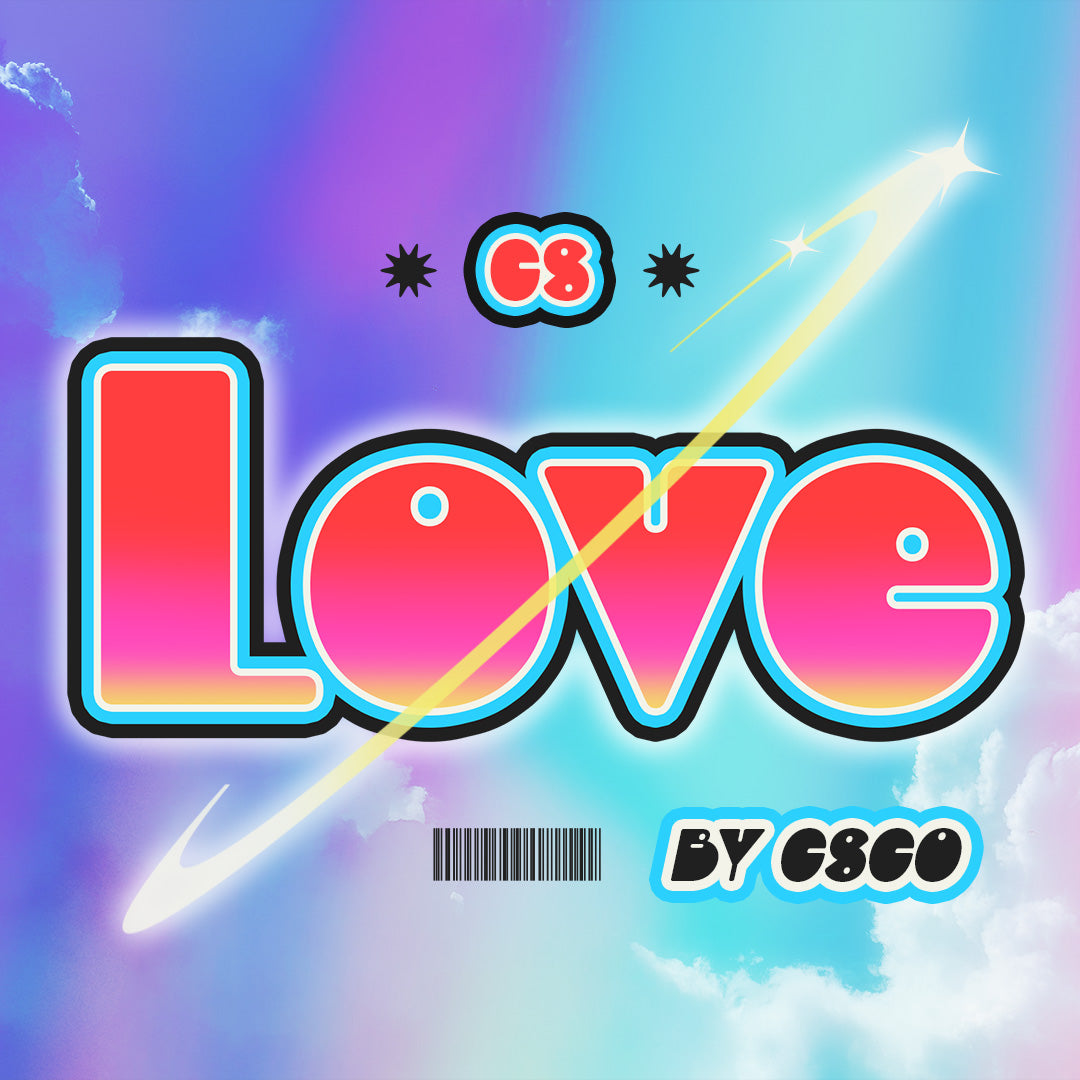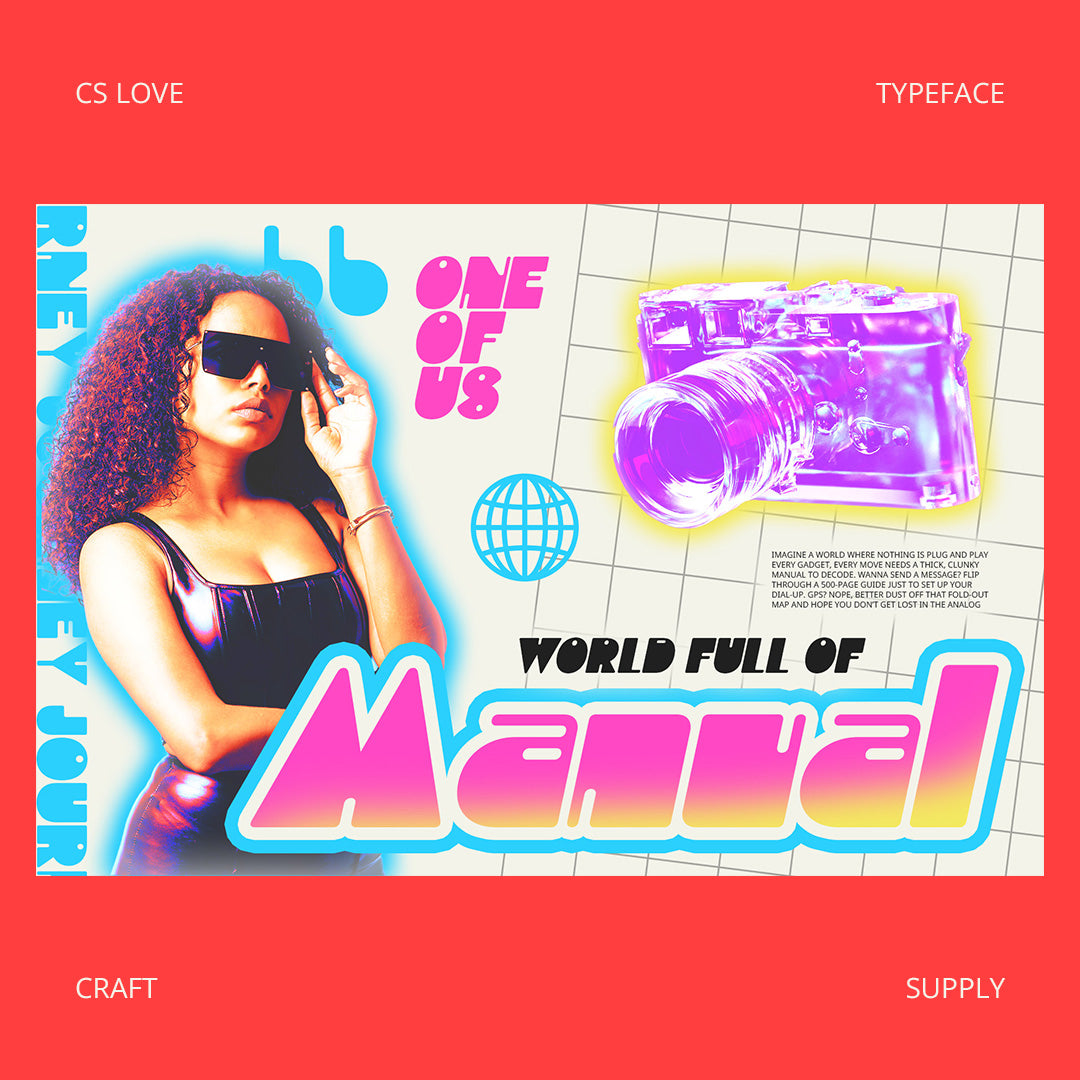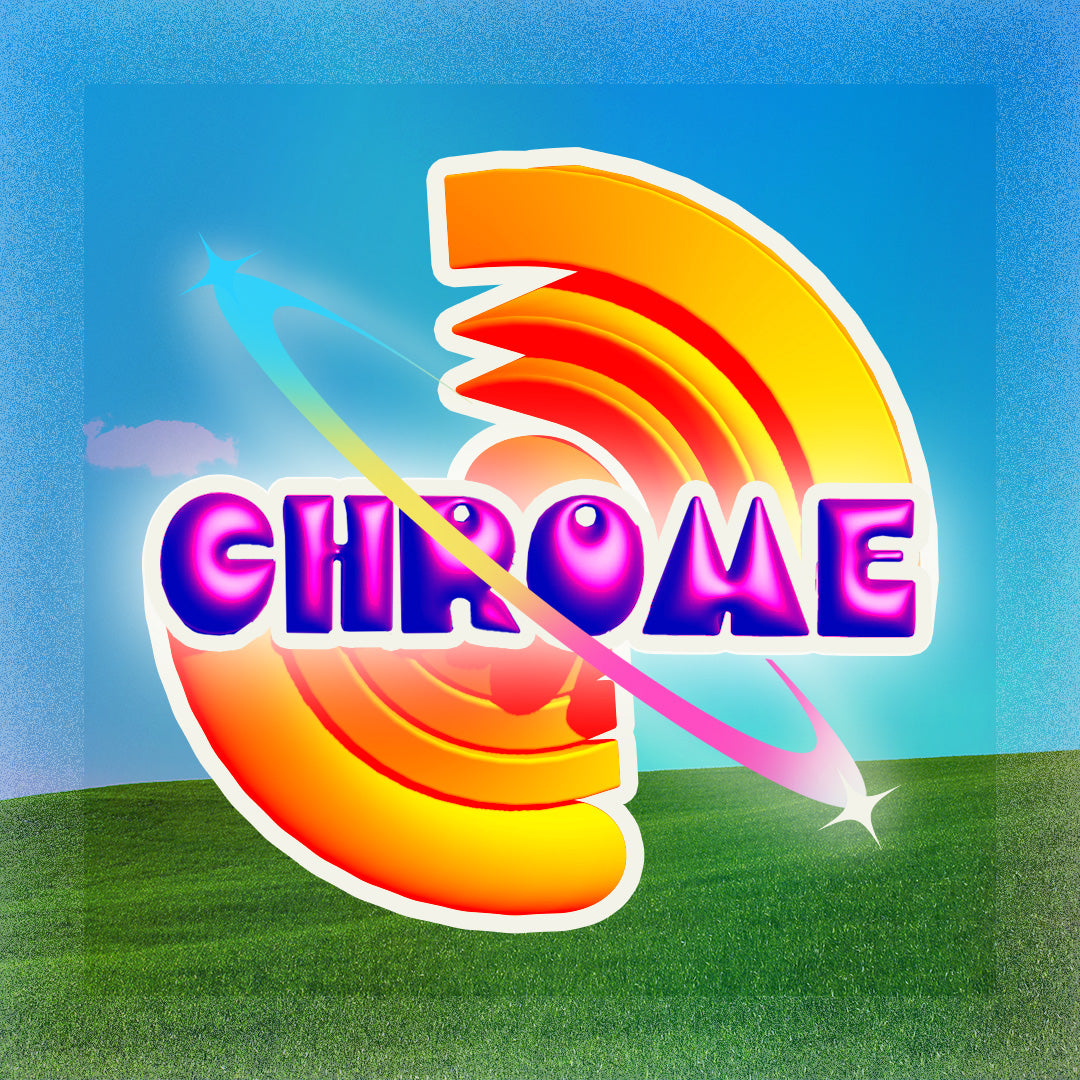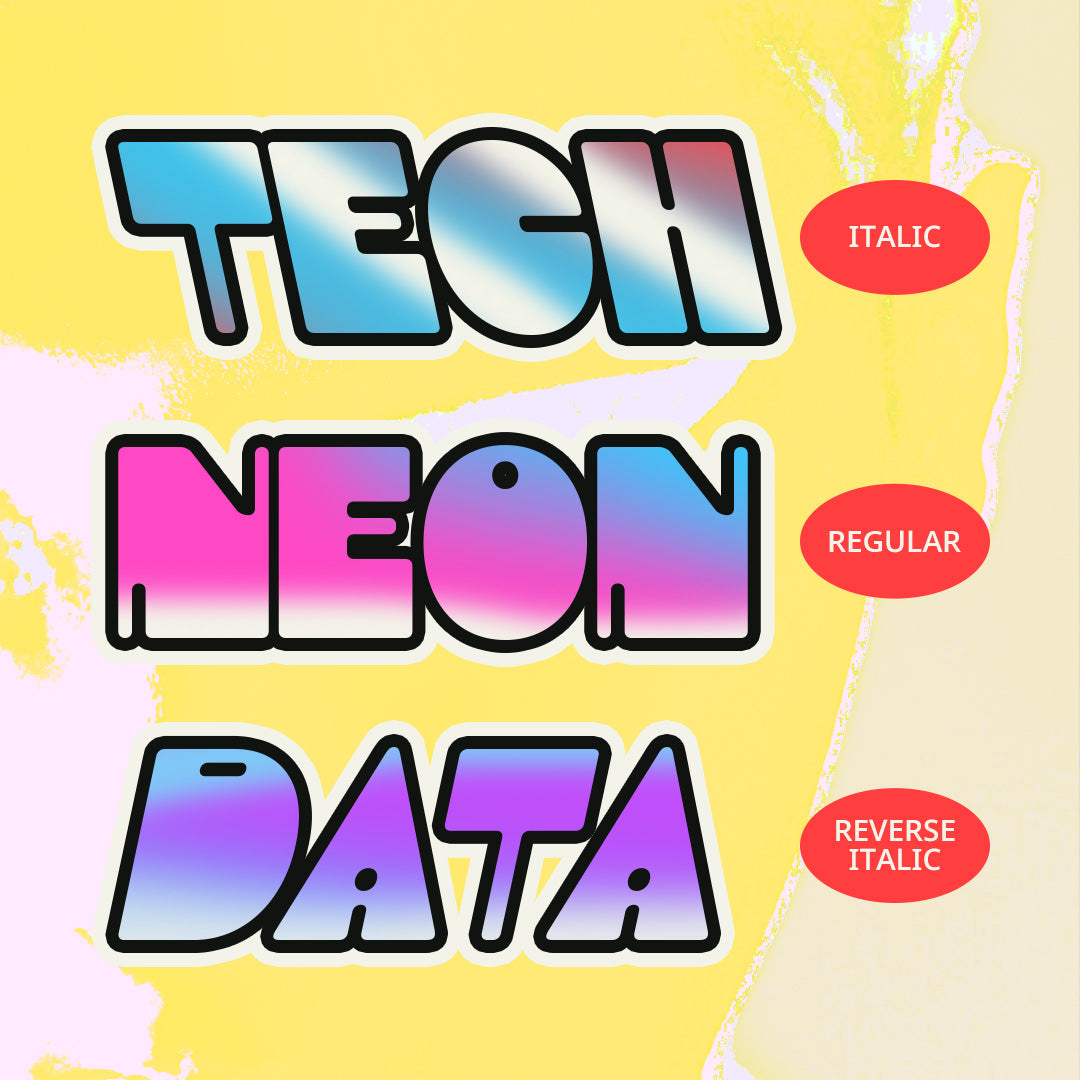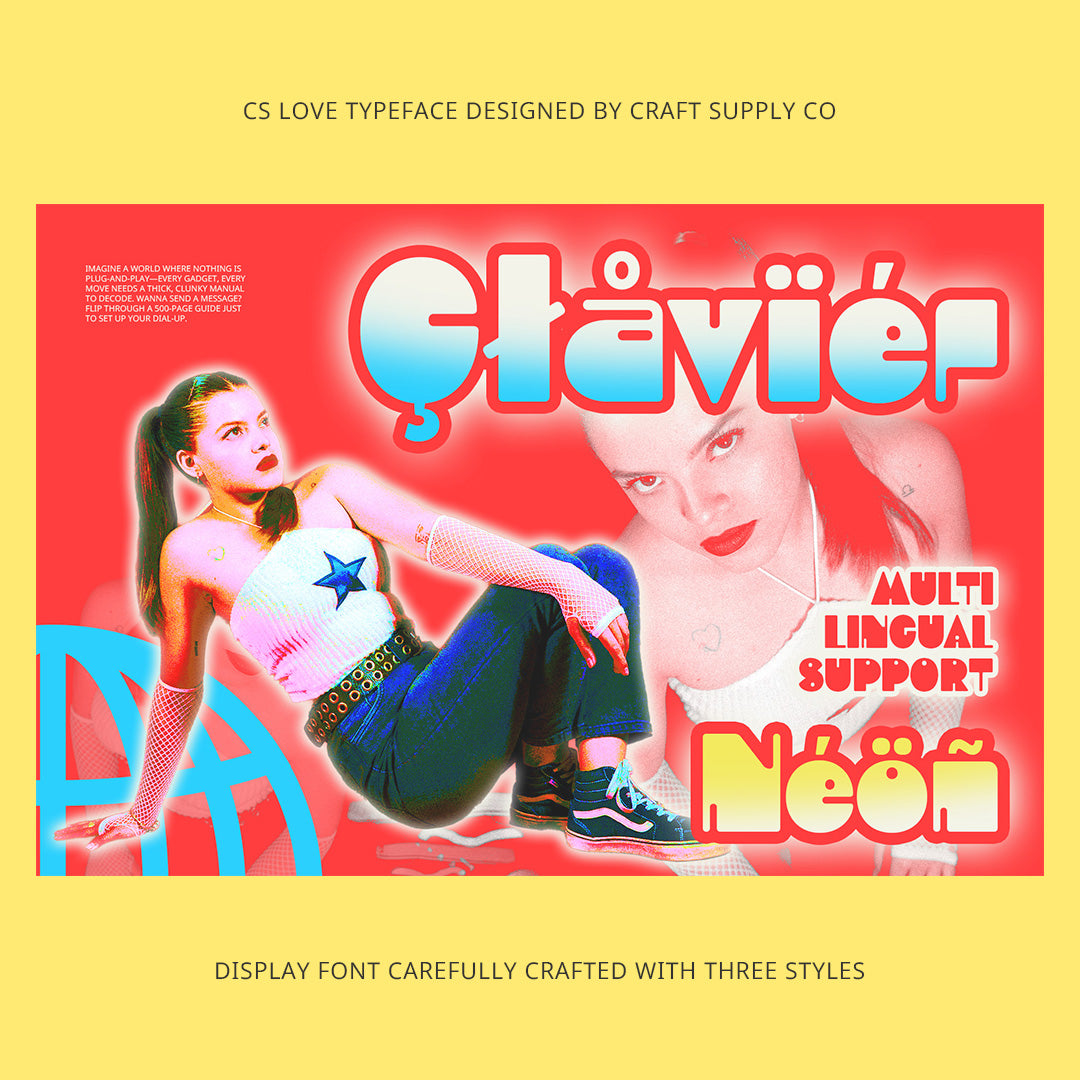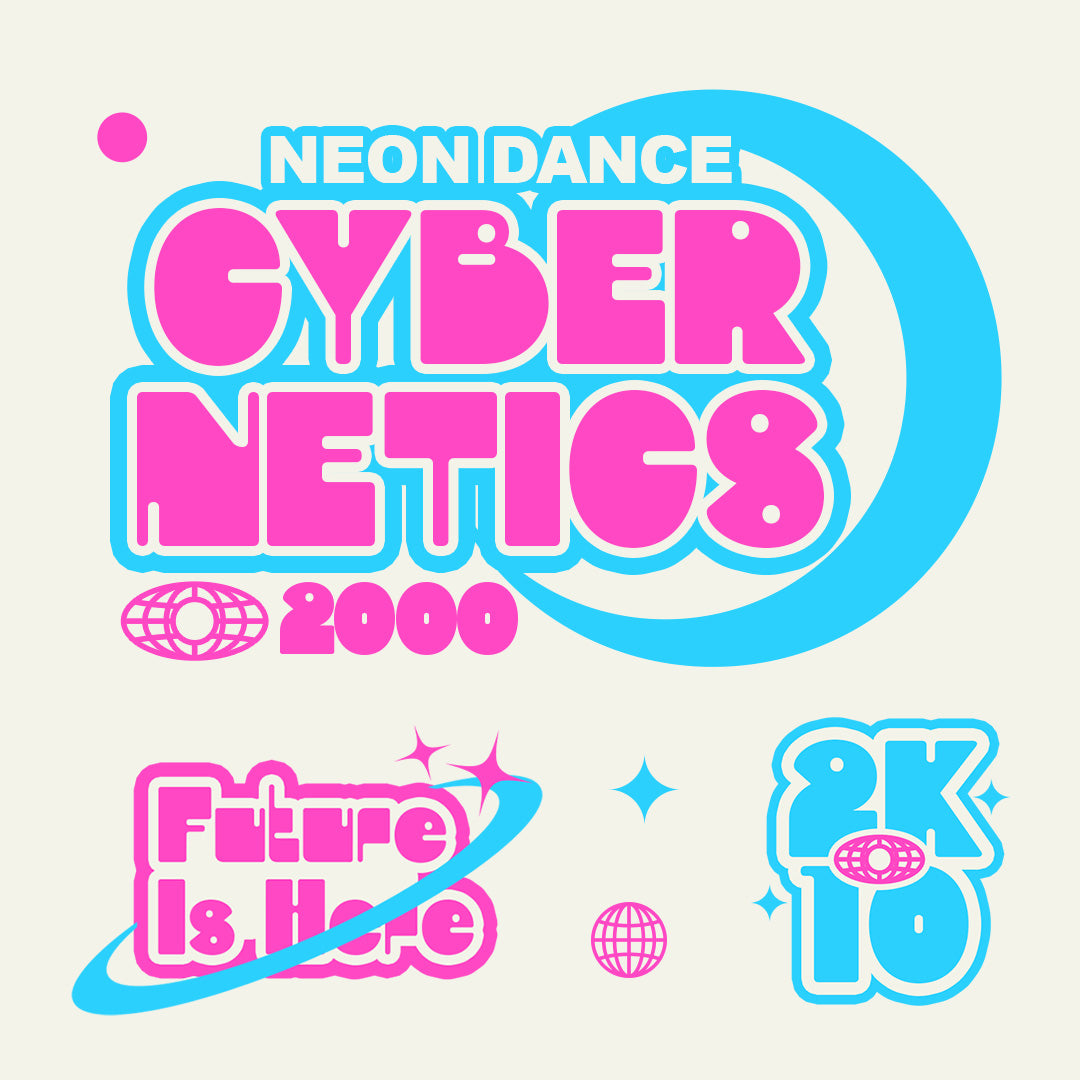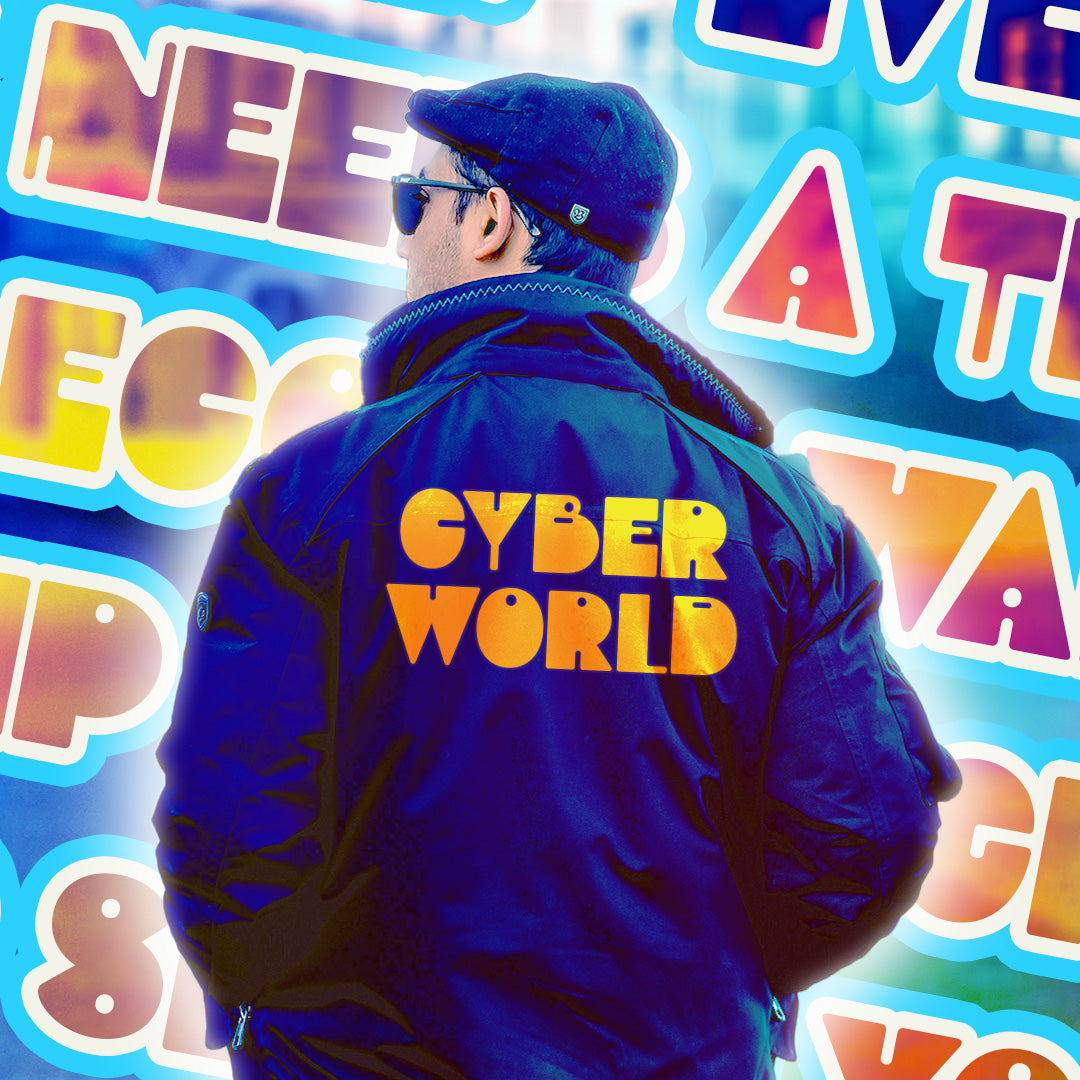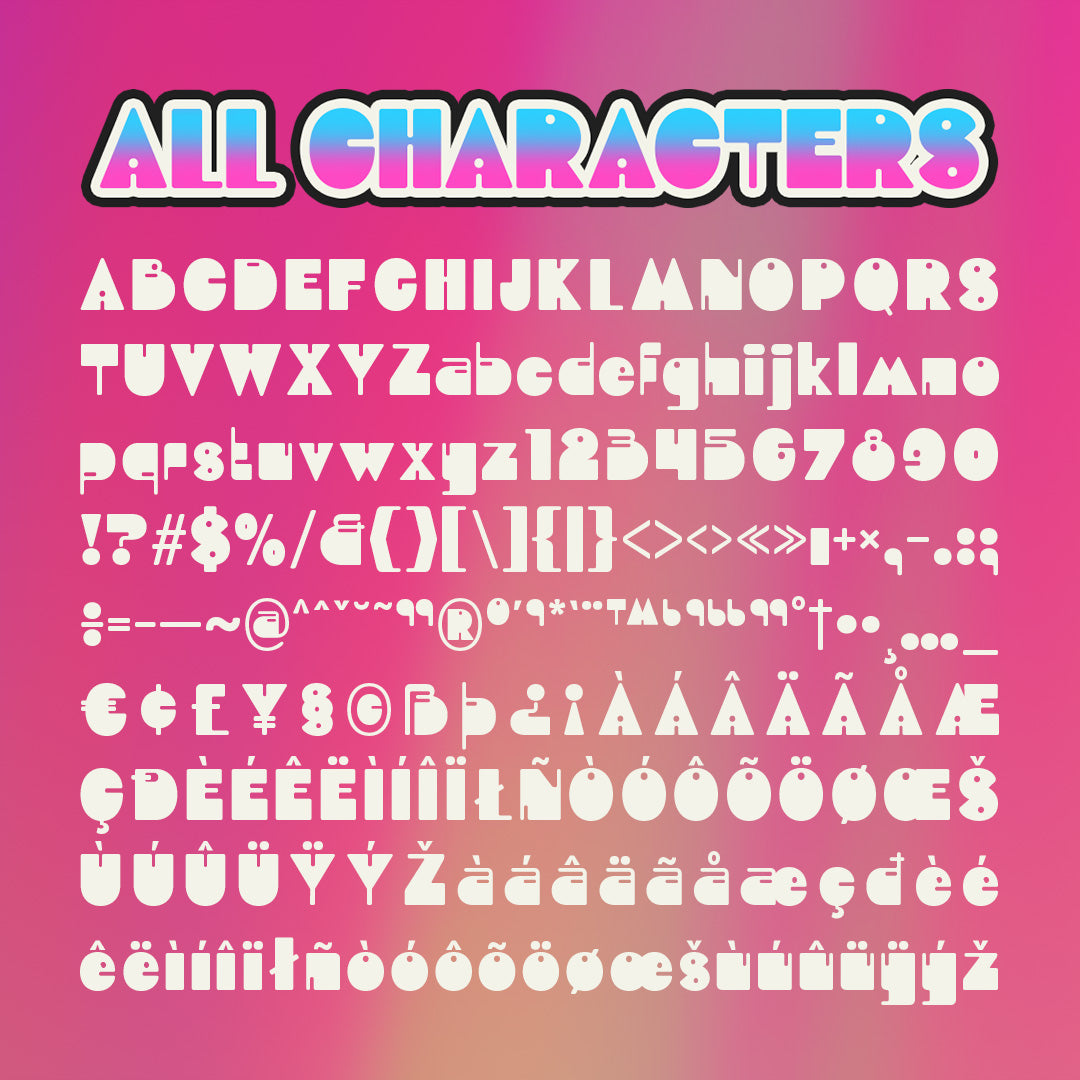
CS Love – Y2K Font
CS Love – Y2K Font: A Bold and Playful Retro-Futuristic Style
Funky and Playful Y2K Aesthetic
CS Love – Y2K Font is a vibrant sans-serif display typeface inspired by the bold and playful aesthetics of the early 2000s. With its bubble-like, rounded shapes, this font exudes a fun and energetic personality, making it perfect for designs that demand a cheerful and eye-catching look. Whether you’re creating branding for a youthful audience or designing vibrant visuals, CS Love delivers an exciting and nostalgic charm.
Bold and Bubble-Inspired Design
Featuring thick, curvy letterforms with a soft, bubbly appearance, CS Love brings a sense of nostalgia while maintaining a fresh and contemporary appeal. The bold strokes enhance readability while adding a dynamic presence to any visual composition. The rounded edges create a friendly, approachable style, making it ideal for projects that emphasize fun, creativity, and excitement.
Perfect for High-Energy and Trendy Designs
Designed for maximum impact, CS Love thrives in creative branding, posters, packaging, and digital media. Its lively and engaging letterforms make it an excellent choice for social media graphics, fashion labels, and event promotions.
CS Love Regular
CS Love Italic
CS Love Reverse Italic
CS Love – Y2K Font is a vibrant sans-serif display typeface featuring bold, bubble-like letterforms with rounded shapes, inspired by the playful aesthetics of the early 2000s. The font includes three styles: Regular, Italic, and Reverse Italic, making it suitable for a variety of design projects.